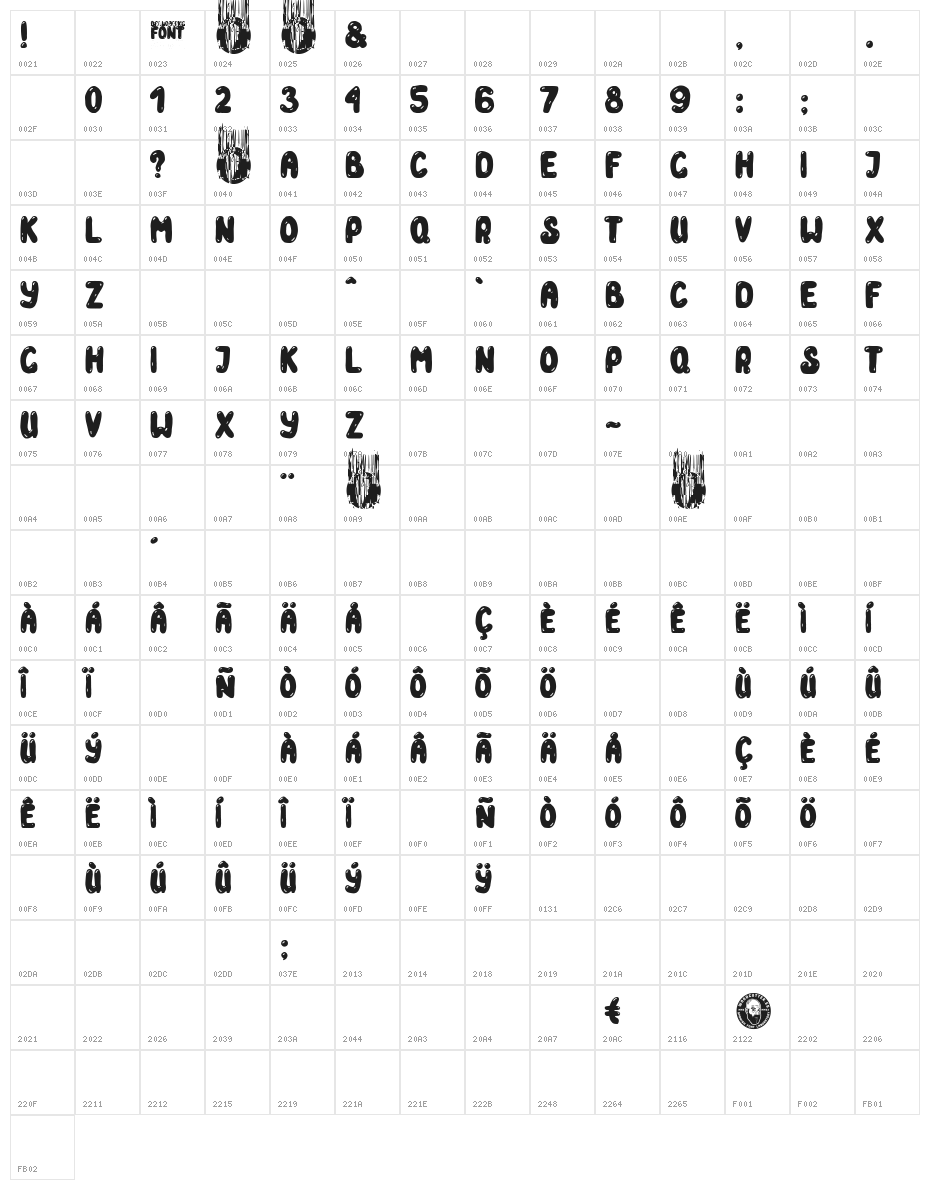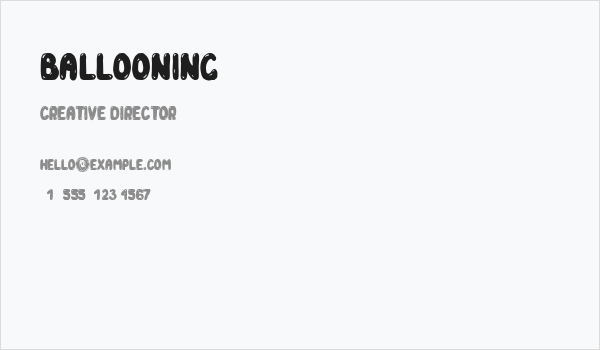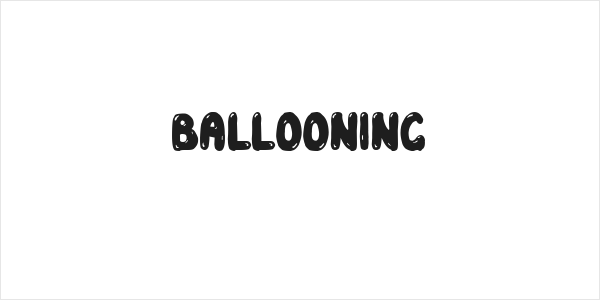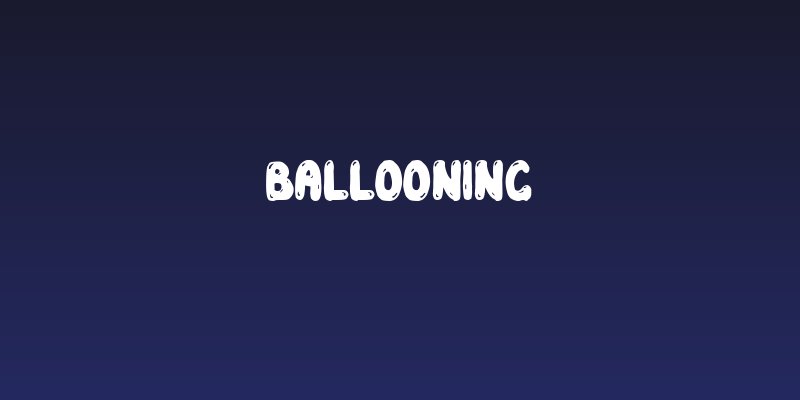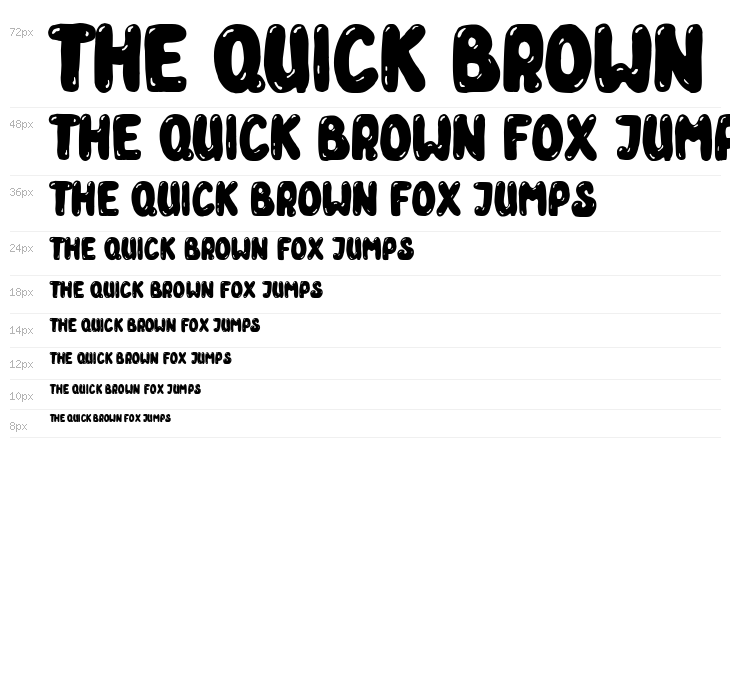
Ballooning Font
Ballooning Description
This playful and whimsical font features bold, rounded characters that resemble inflated balloons. Each letter is crafted with a sense of fun and buoyancy, making it perfect for designs that aim to capture a lighthearted and joyful essence. The characters are uniformly thick, contributing to a consistent and cohesive look across the alphabet. The font includes both uppercase and lowercase letters, numbers, and a selection of special characters, all maintaining the same bubbly style. Its unique appearance makes it stand out, ideal for projects that require a touch of creativity and imagination.
| Proposed Projects | Ideal for children's party invitations, playful branding, toy packaging, and festive event posters. |